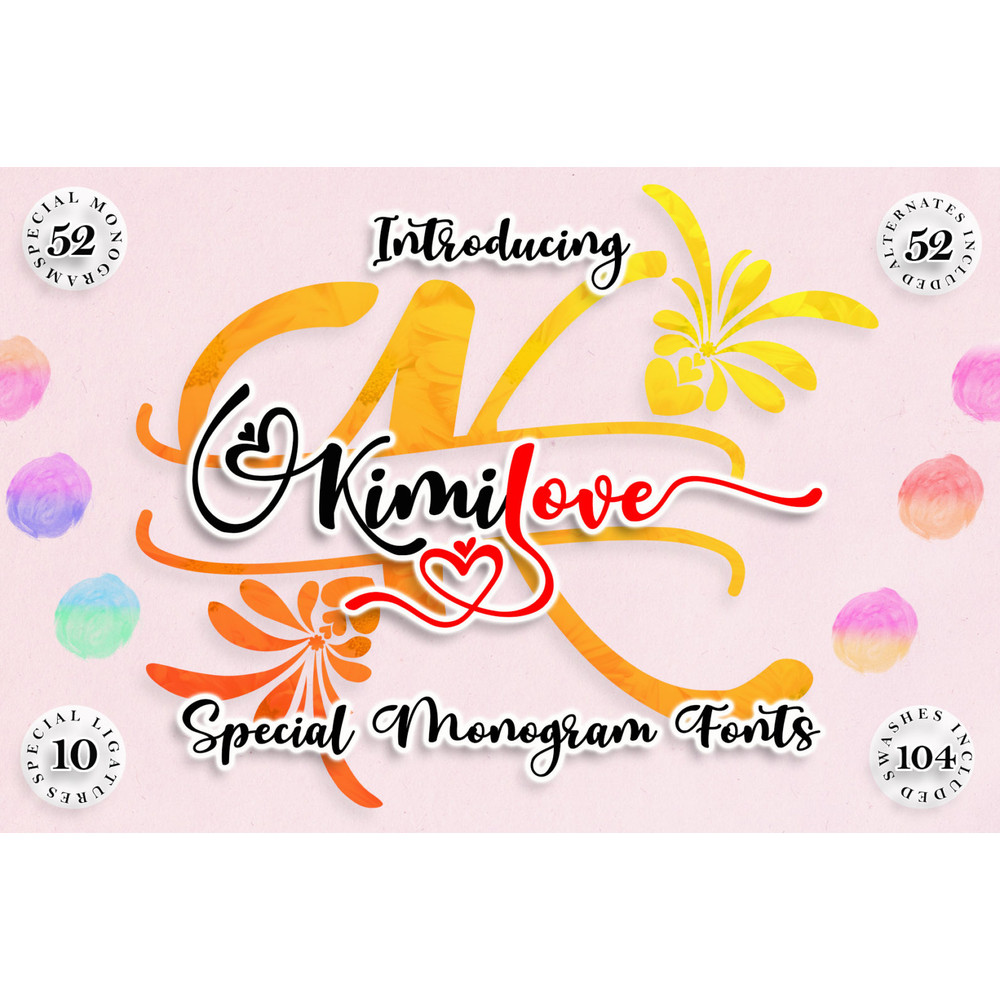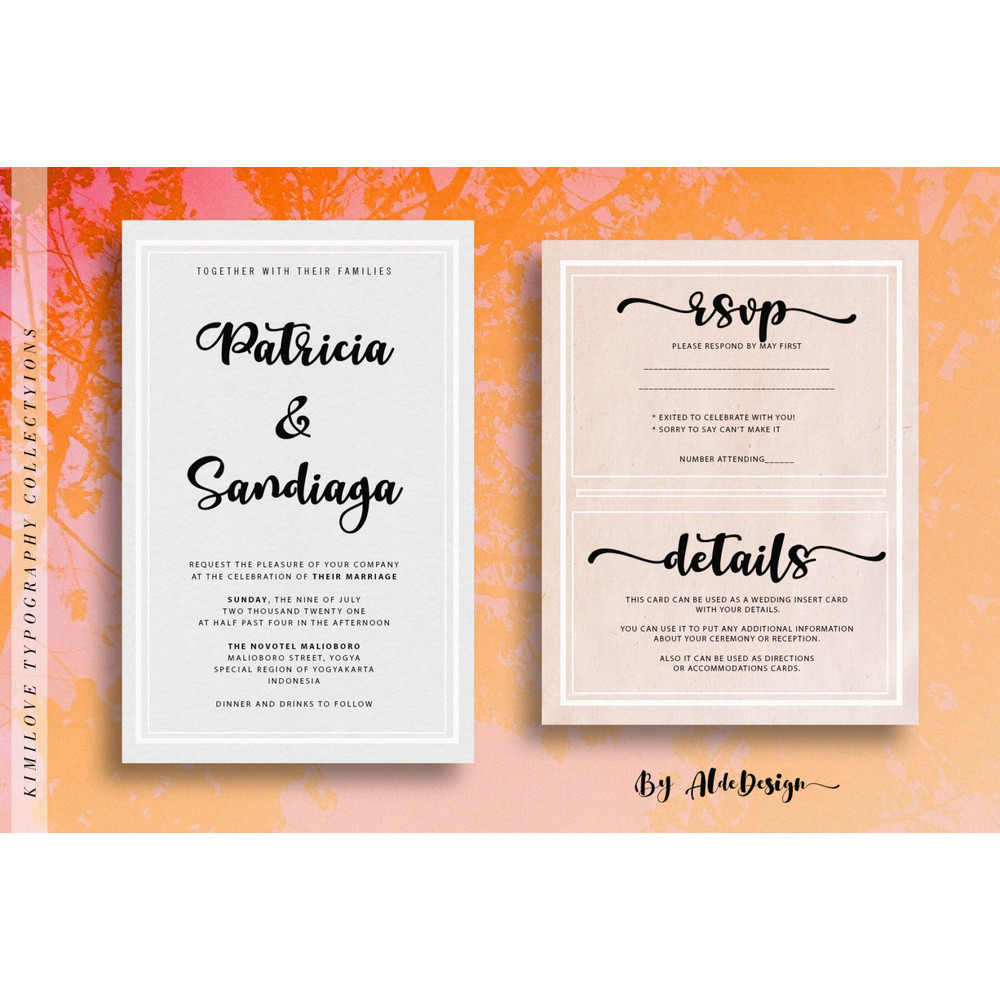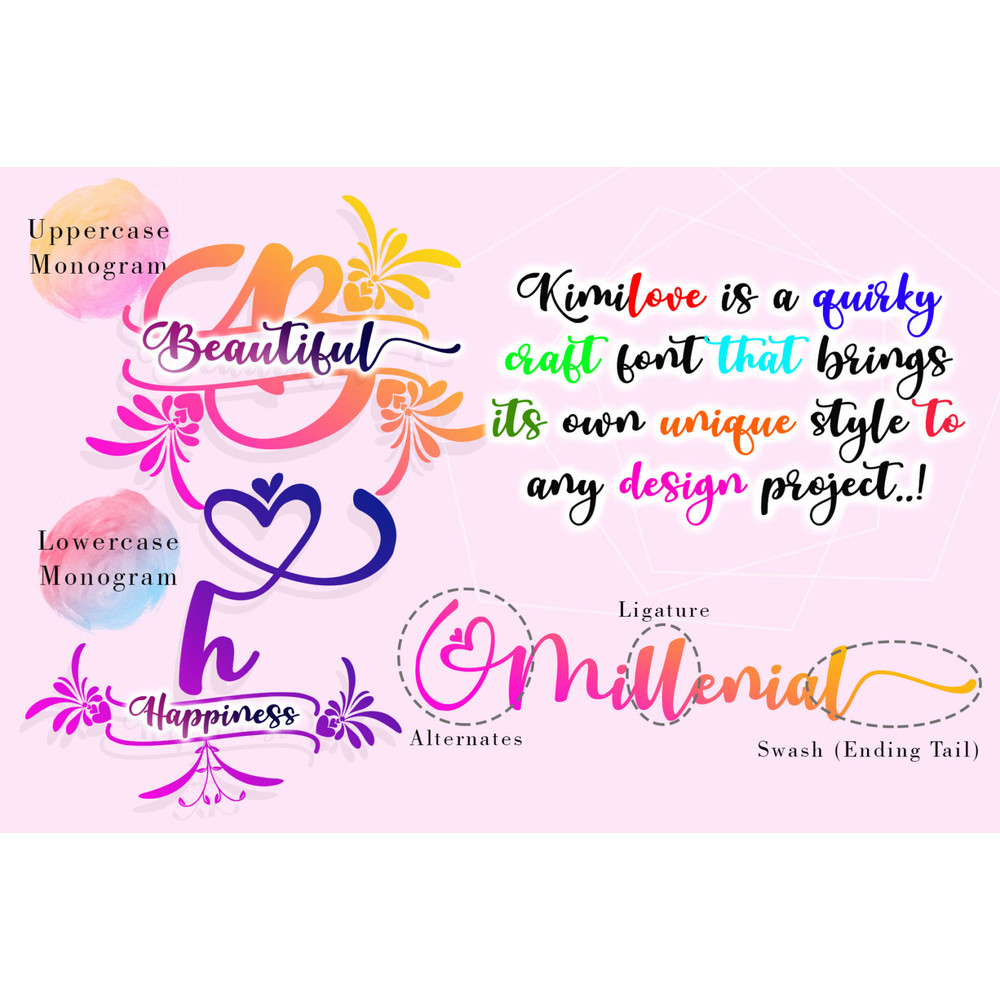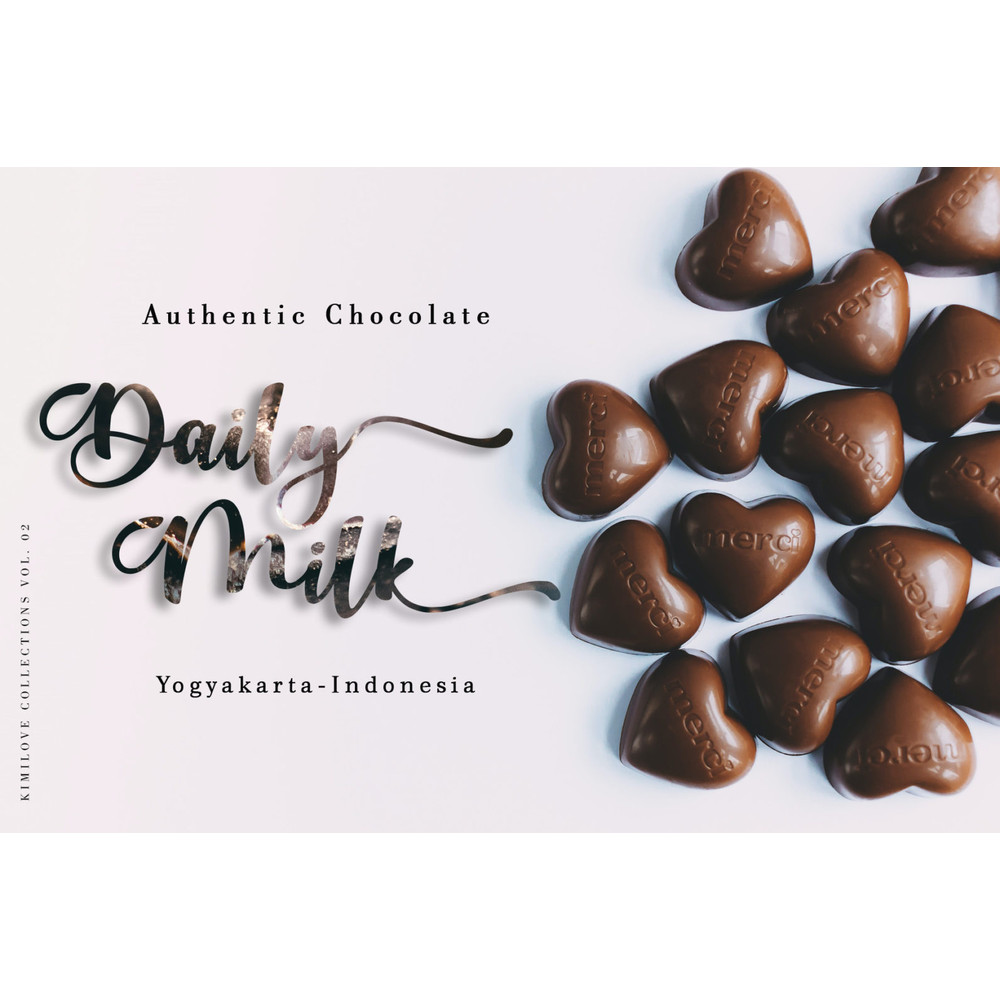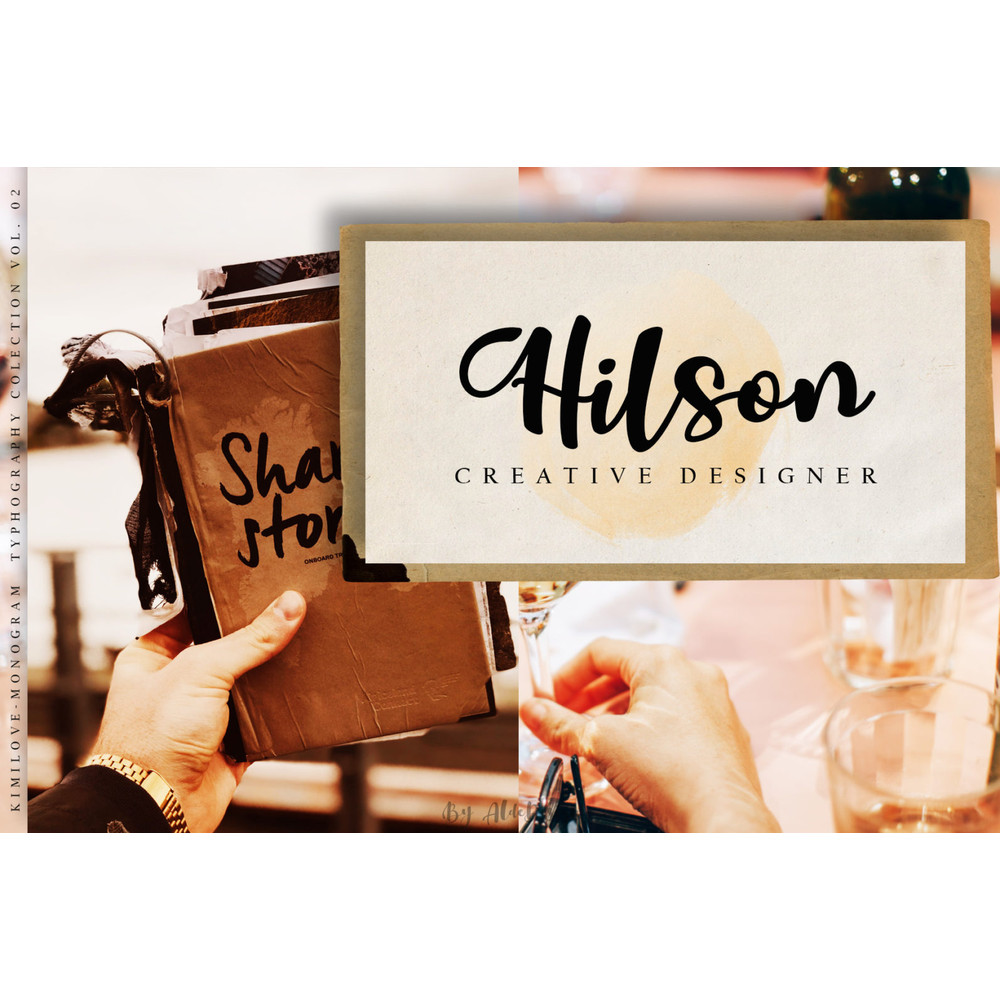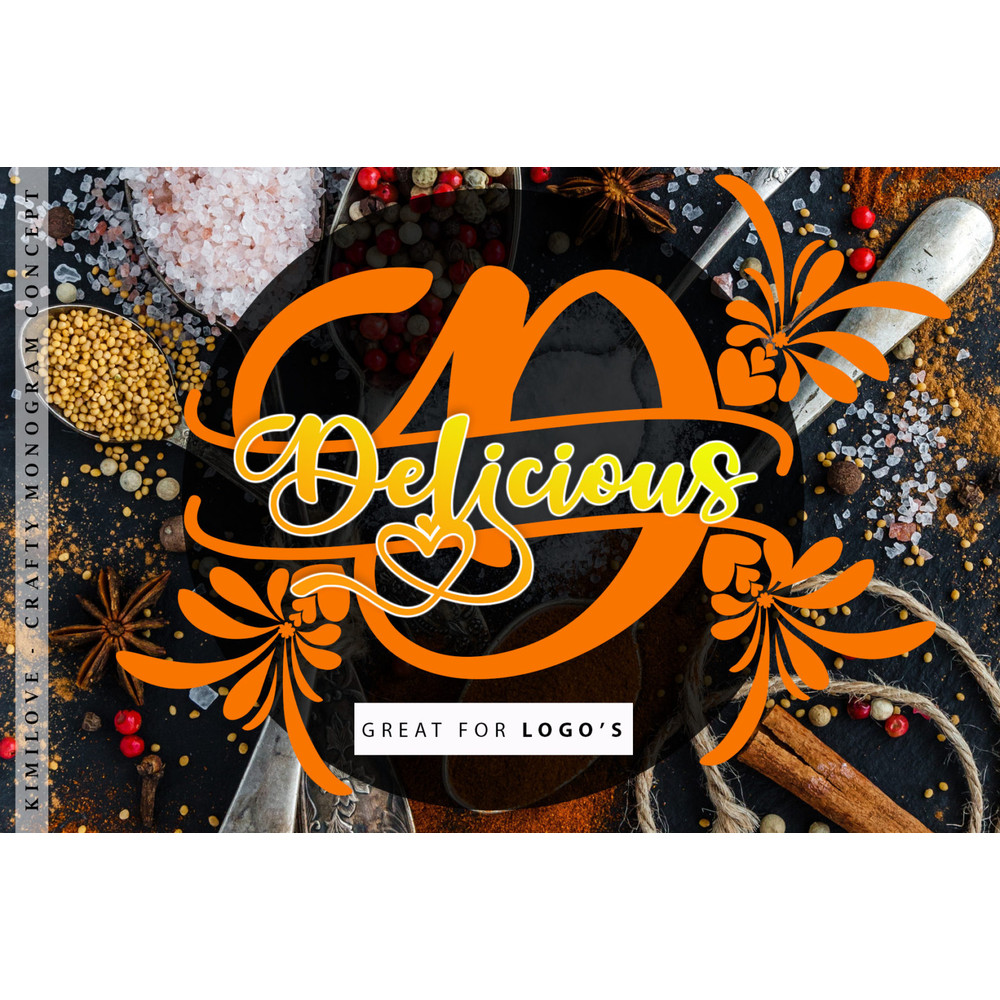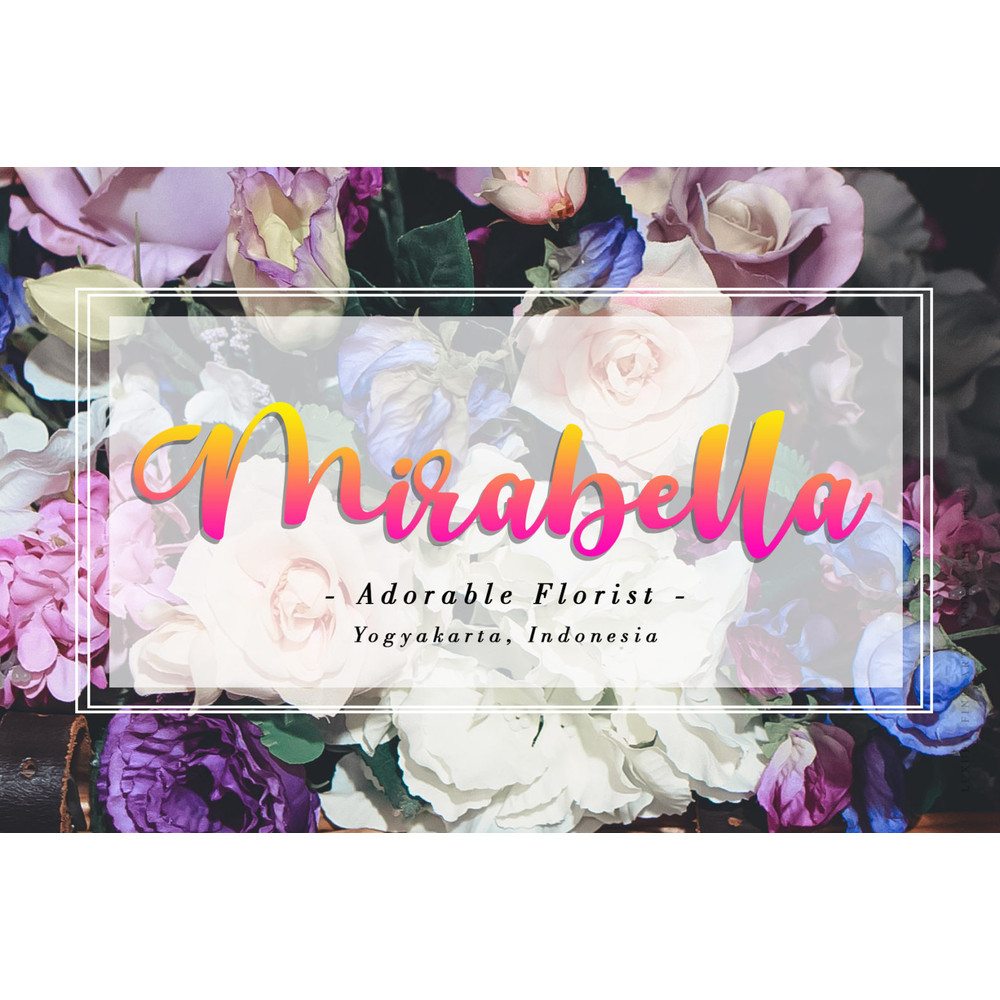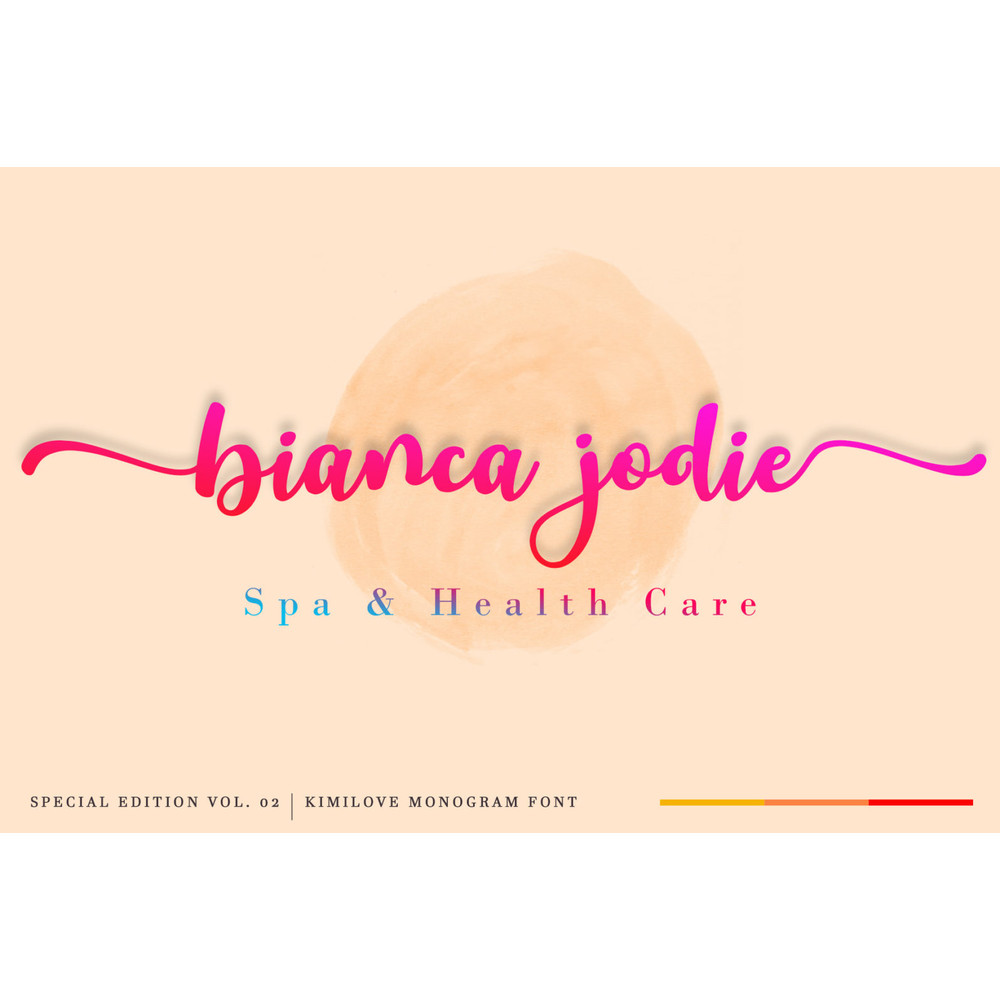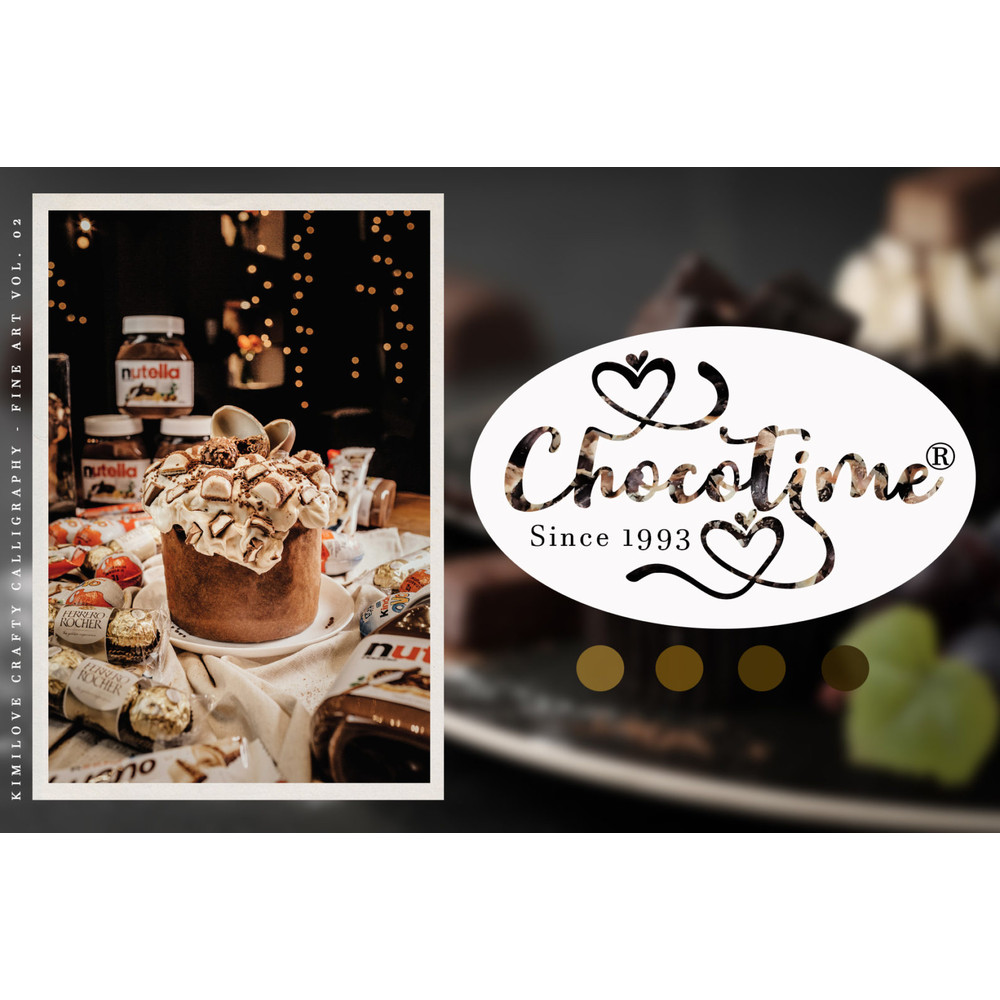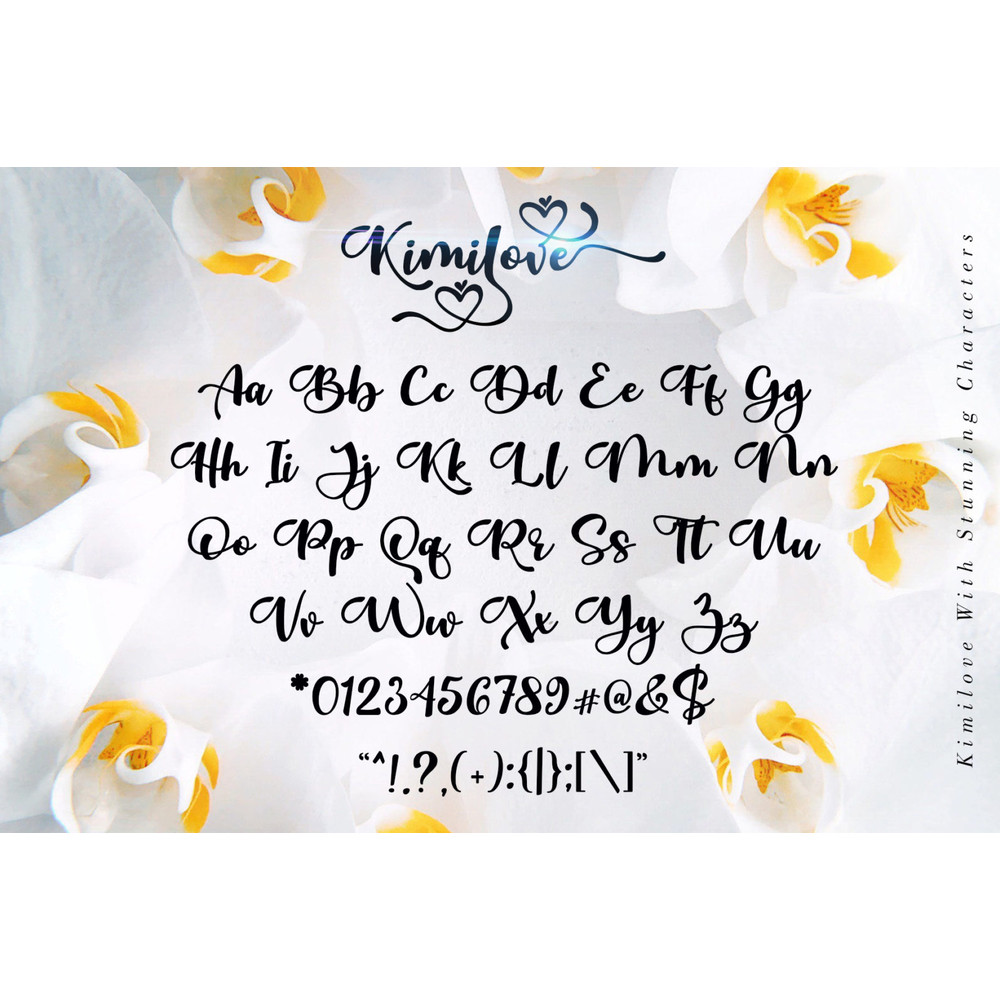
Kimilove // Monogram Script Font Trending Fonts - Digital Font
Kimilove feels equally charming and elegant. This font is PUA encoded which means you can access all of the glyphs and swashes with ease! It features a varying baseline, smooth lines, gorgeous glyphs, and stunning alternates.
Fall in love with Kimilove’s incredibly versatile style and use it to create gorgeous wedding invitations, beautiful stationary art, eye-catching social media posts, and much more!